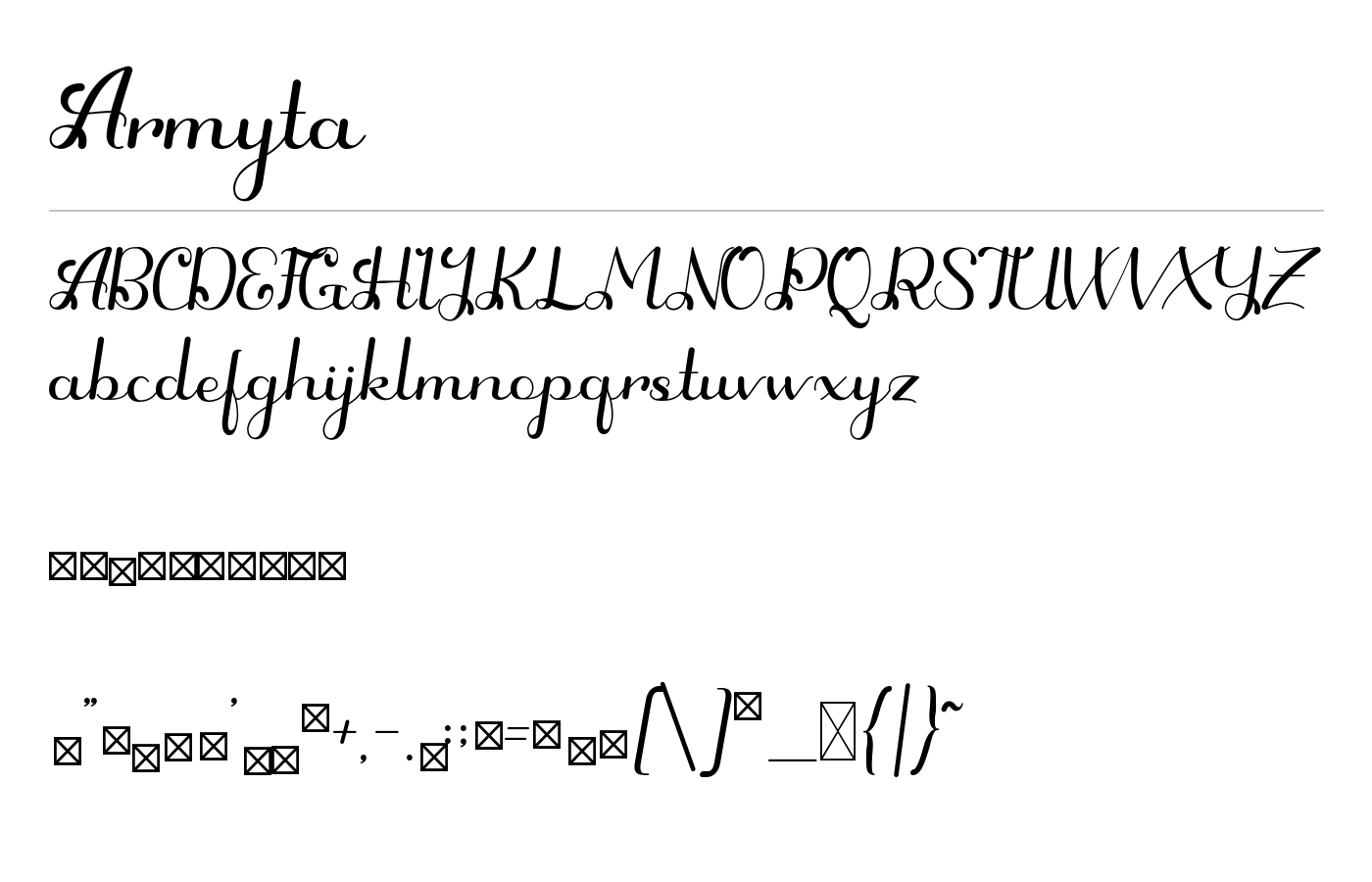
Armyta is a delicate and elegant script font characterized by its smooth, flowing lines and graceful curves. Its light weight and clean, slightly whimsical letterforms give it a refined yet approachable personality, making it ideal for invitations, branding, and stylish headlines where a touch of sophistication is desired. This font works well in designs that seek a romantic or artistic feel, lending charm and subtle flair without overwhelming the overall aesthetic.
| Font family | Armyta Font |
| Designer | Yesie Erma Yunita |